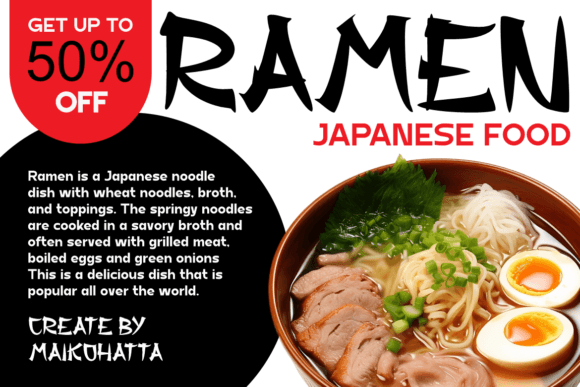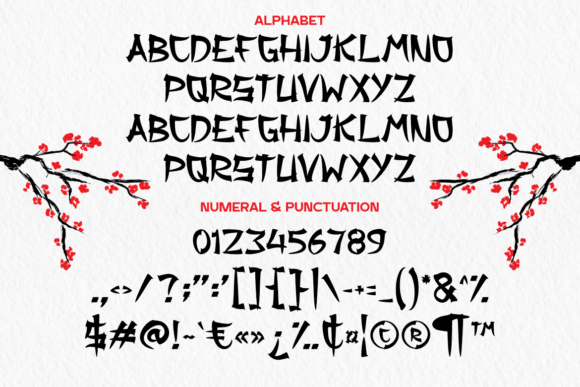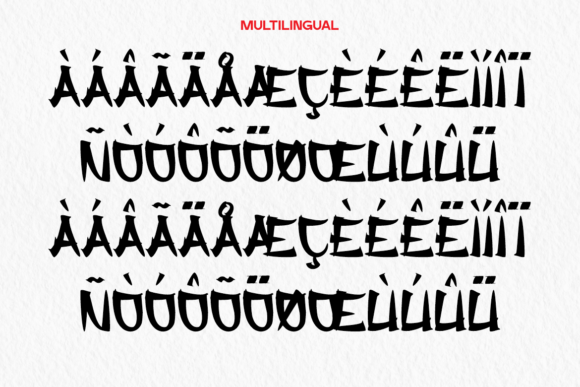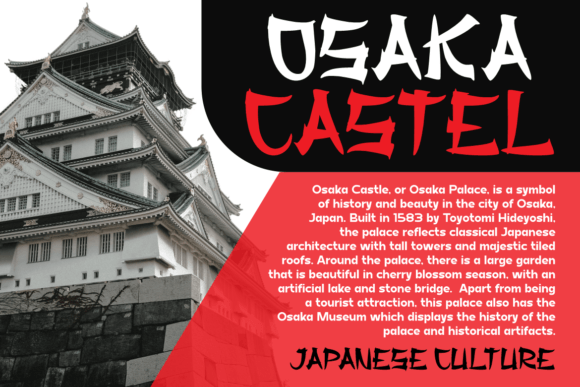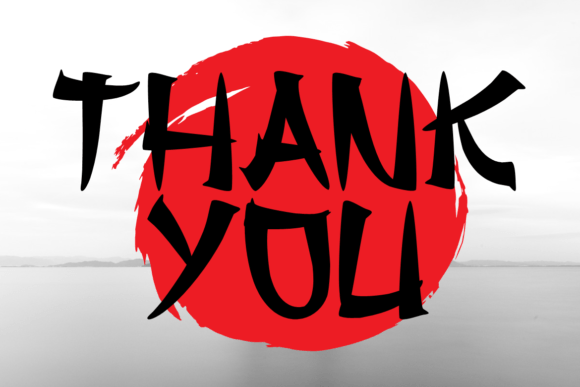
The Art of Beautiful Typography: Akiro Font
Imagine yourself lost in the tranquil landscapes of Japan, surrounded by serene temples and vibrant cityscapes. The soothing rhythms of nature, the elegant curves of kanji characters – it’s a moment that sparks the creative flame within. For designers, this inspiration often translates into a quest for the perfect font, one that captures the essence of a culture and time.
Enter Akiro Font, a masterful blend of aesthetics and cultural heritage. This versatile font is designed to transport your audience to the world of Japan, where tradition meets modernity. With its unique combination of elegance and simplicity, Akiro Font is an invaluable tool for designers seeking to create a captivating impression in various design contexts.
Whether you’re crafting a logo, a brochure, or a digital interface, Akiro Font offers the perfect balance of style and substance. Its rich cultural history and beautiful typography make it a valuable asset for designers looking to elevate their work and connect with their audience on a deeper level.
Akiro Font Key Features
- Unique Characteristics: Akiro Font features a unique blend of modern and traditional elements, with subtle rounded edges and elegant letterforms, giving it a distinctive look.
Akiro Font Review
I recently had the chance to work with Akiro Font, and I must say it’s a mixed bag. ✨ On the plus side, Akiro’s unique blend of traditional and modern elements makes it a standout choice for those looking to add some personality to their designs. The font’s bold lines and geometric shapes give it a strong, edgy feel that’s perfect for headlines and titles.
Another strength of Akiro is its versatility. ✨ It comes in a range of weights and styles, from light to bold, and even includes some fun, experimental variations. This makes it easy to find the perfect version to match your design’s tone and mood.
However, there are some limitations to consider ⚠️. Akiro can feel a bit overused in some contexts, and its bold lines can be overwhelming if not used judiciously. Additionally, the font’s irregular shape can make it difficult to read at small sizes or in dense text blocks.
Overall, I’d say Akiro Font is a solid choice for designers looking to add some visual interest to their work. While it may not be the best fit for every project, it’s certainly worth considering for anything that needs a bold, eye-catching font.
- Pros: Unique blend of traditional and modern elements, versatile range of weights and styles, fun experimental variations
- Cons: Can feel overused in some contexts, bold lines can be overwhelming, irregular shape can make it difficult to read at small sizes
Tips for Getting the Most Out of Akiro Font
For optimal results, use Akiro Font in conjunction with bold and italic styles to create visual hierarchy and emphasis.
Experiment with different font sizes to create a balanced and visually appealing design.
Akiro Font is ideal for:
- Marketing materials (brochures, flyers, etc.)
- Website design and development